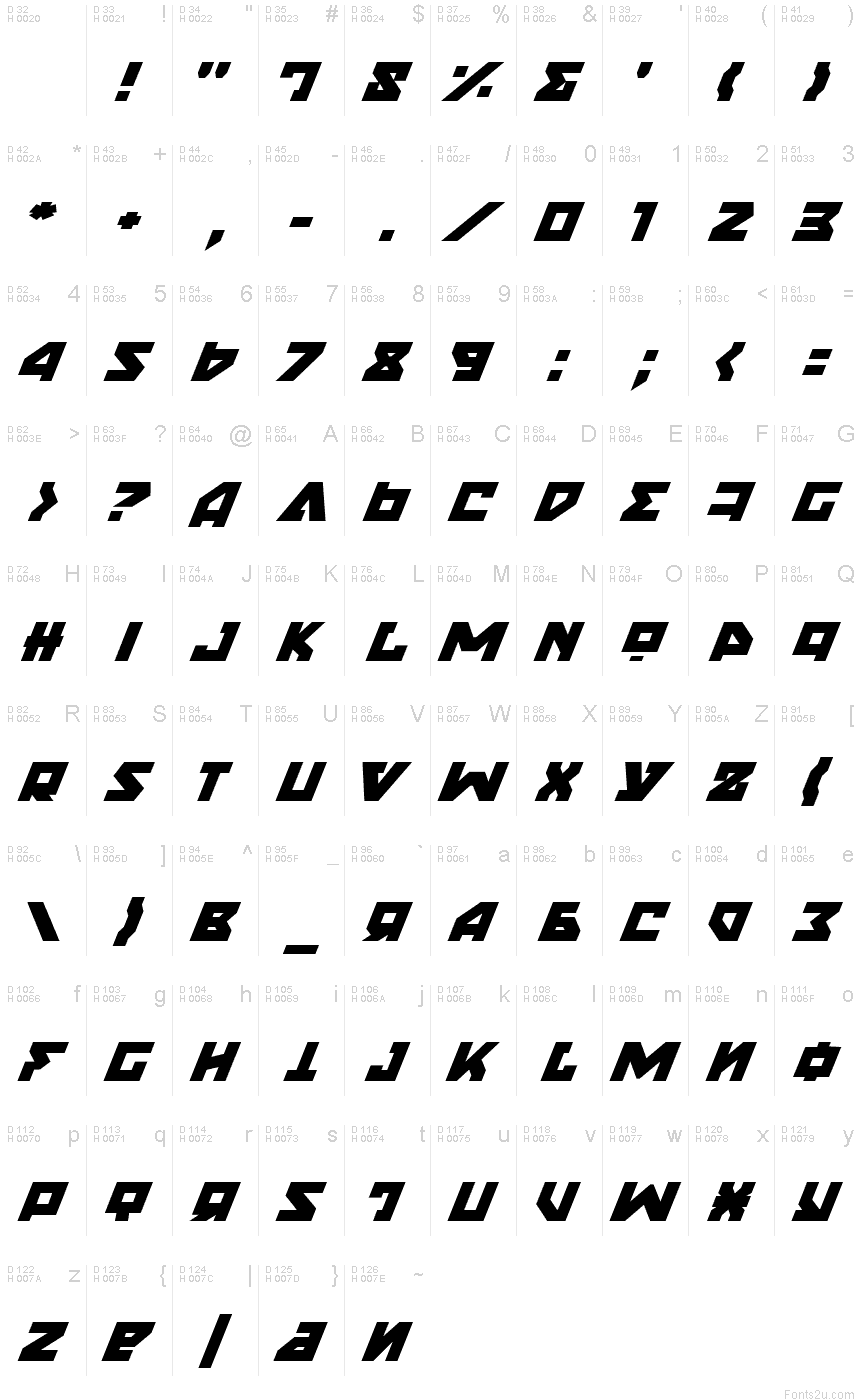
Nyet Italic
Nyet Italic font by Iconian Fonts is a free Russian-inspired display font with slanted, cutaway letterforms and sharp diagonal breaks. Its characters feel as if they have been sliced and pushed forward, with pointed angles and large open spaces that give the words a hard, graphic rhythm.
Nyet Italic works well for posters, music covers, game titles, editorial accents, and logo text that needs a strong Eastern European edge. This free font also fits signage, event graphics, and themed packaging because its compact, angular structure keeps the wording looking deliberate and distinctive.